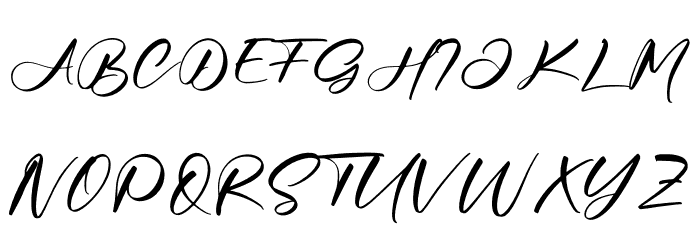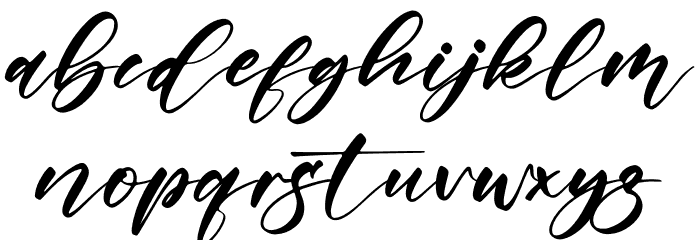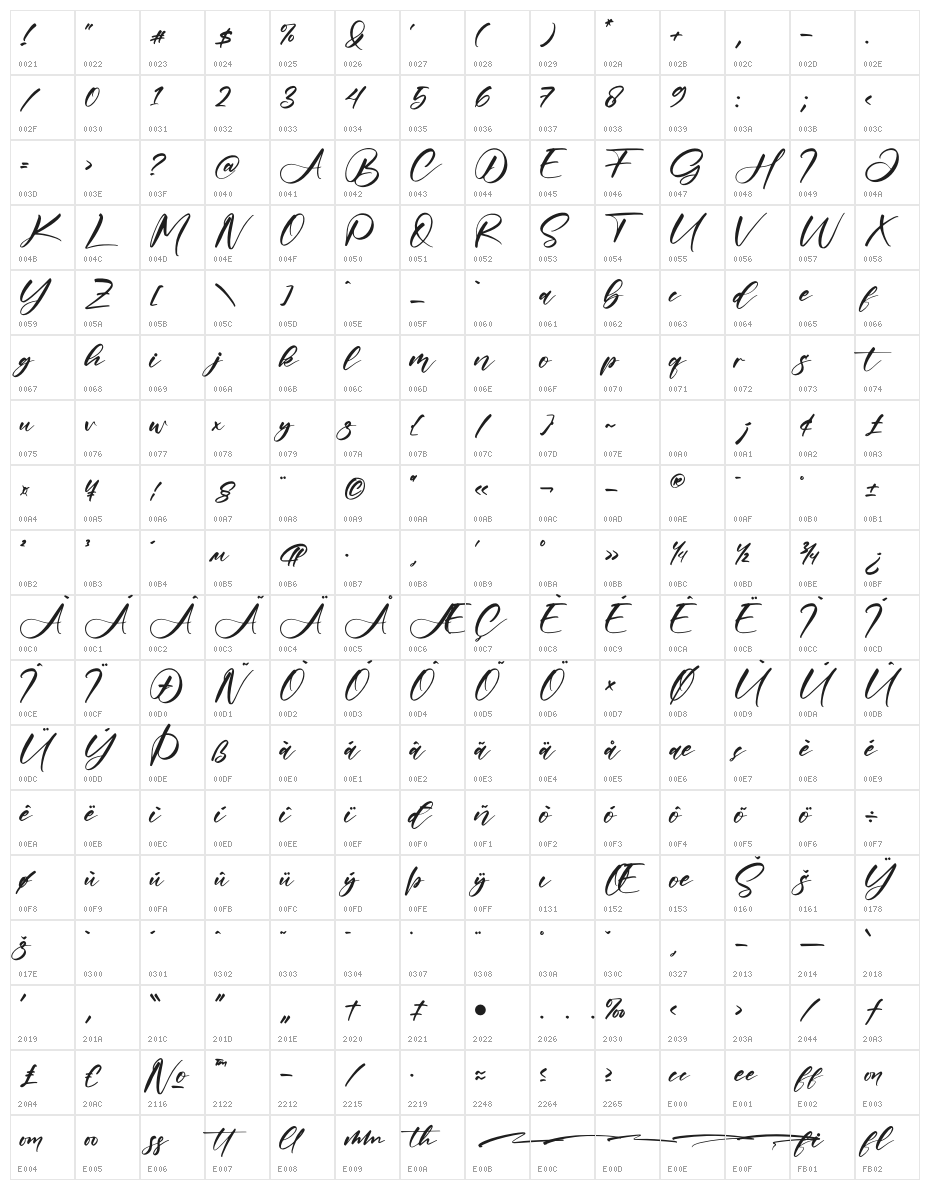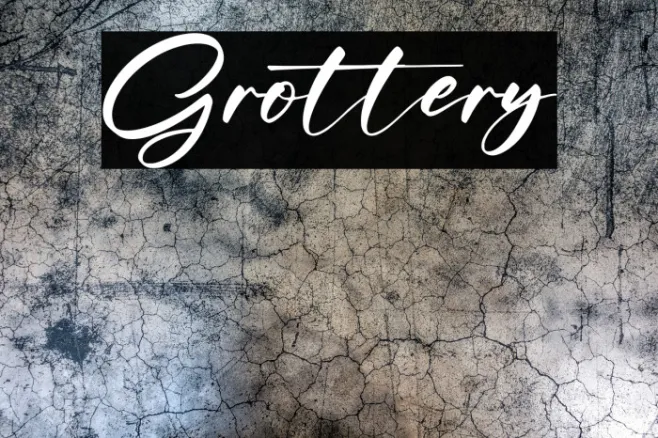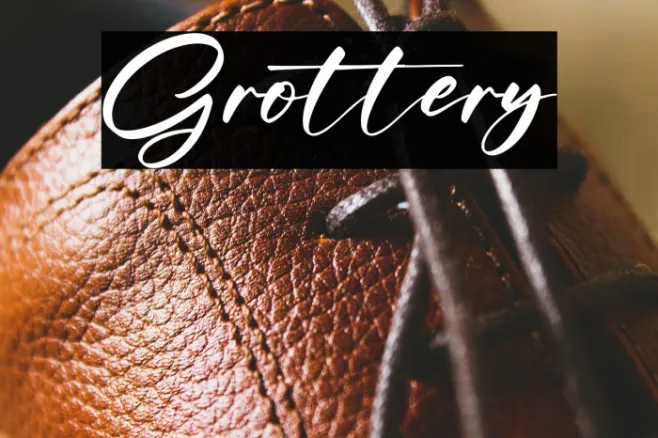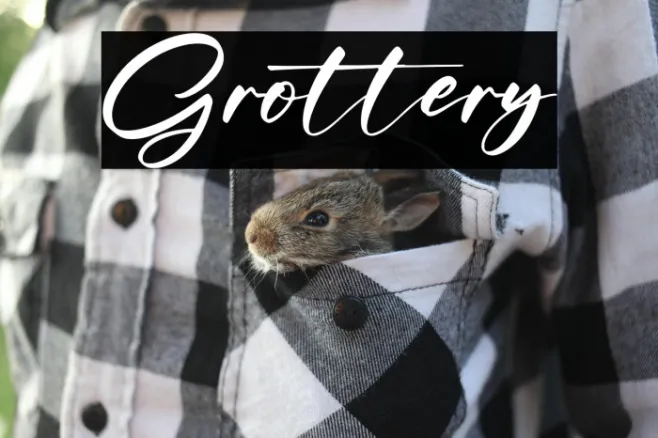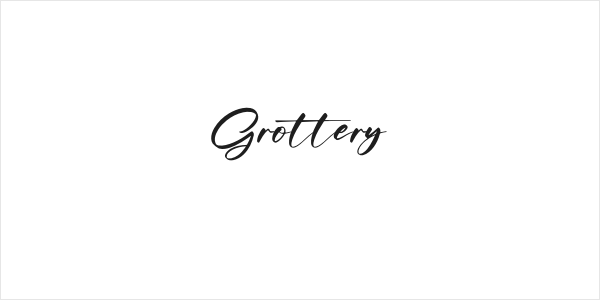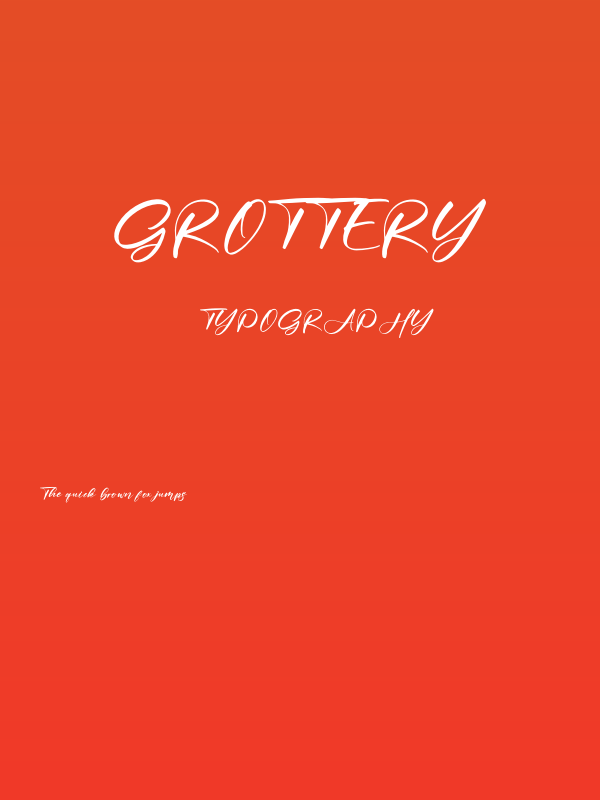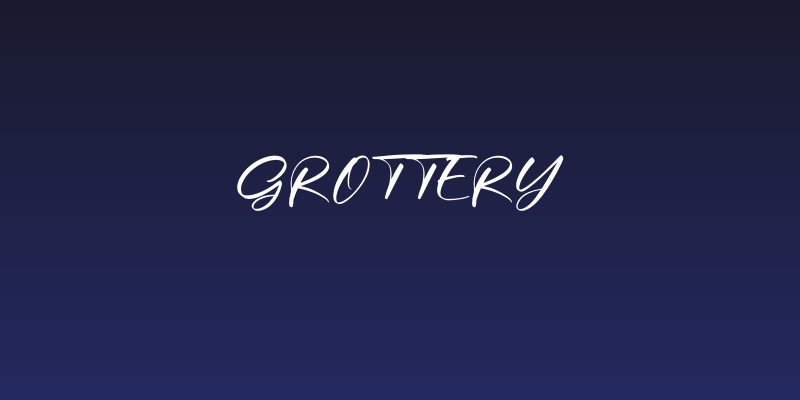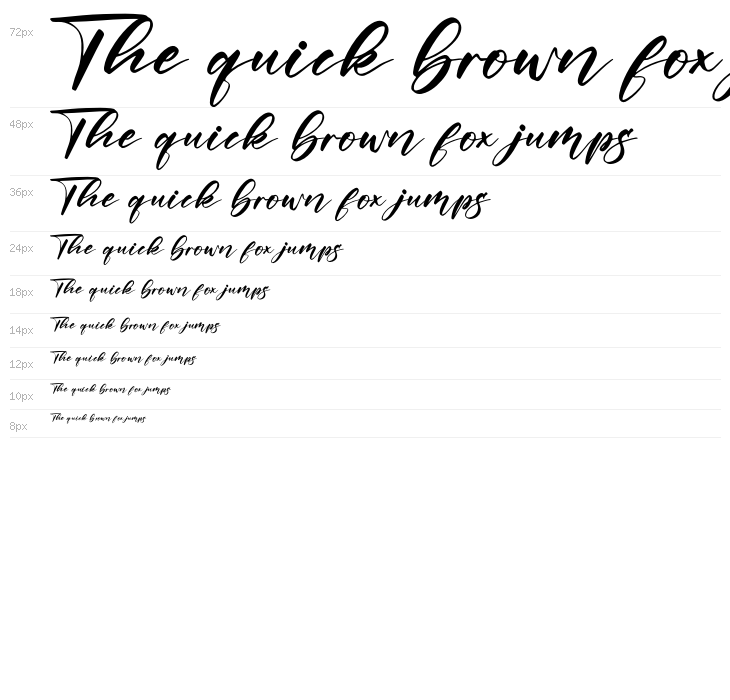
Grottery Font
This font exhibits a dynamic and expressive handwritten style, characterized by fluid, cursive strokes that convey a sense of elegance and sophistication. The uppercase letters are bold and sweeping, with distinctive loops and flourishes that add a touch of flair. The lowercase letters maintain a consistent flow, enhancing readability while retaining the artistic quality. Numbers and special characters are crafted with the same attention to detail, ensuring a cohesive look throughout. The overall appearance is both modern and timeless, making it suitable for a variety of creative applications.
A dynamic and expressive handwritten cursive font with elegant flourishes.
- Proposed Projects: Ideal for wedding invitations, branding, greeting cards, and elegant packaging designs.
- Use Case: Logos, Headlines, Invitations